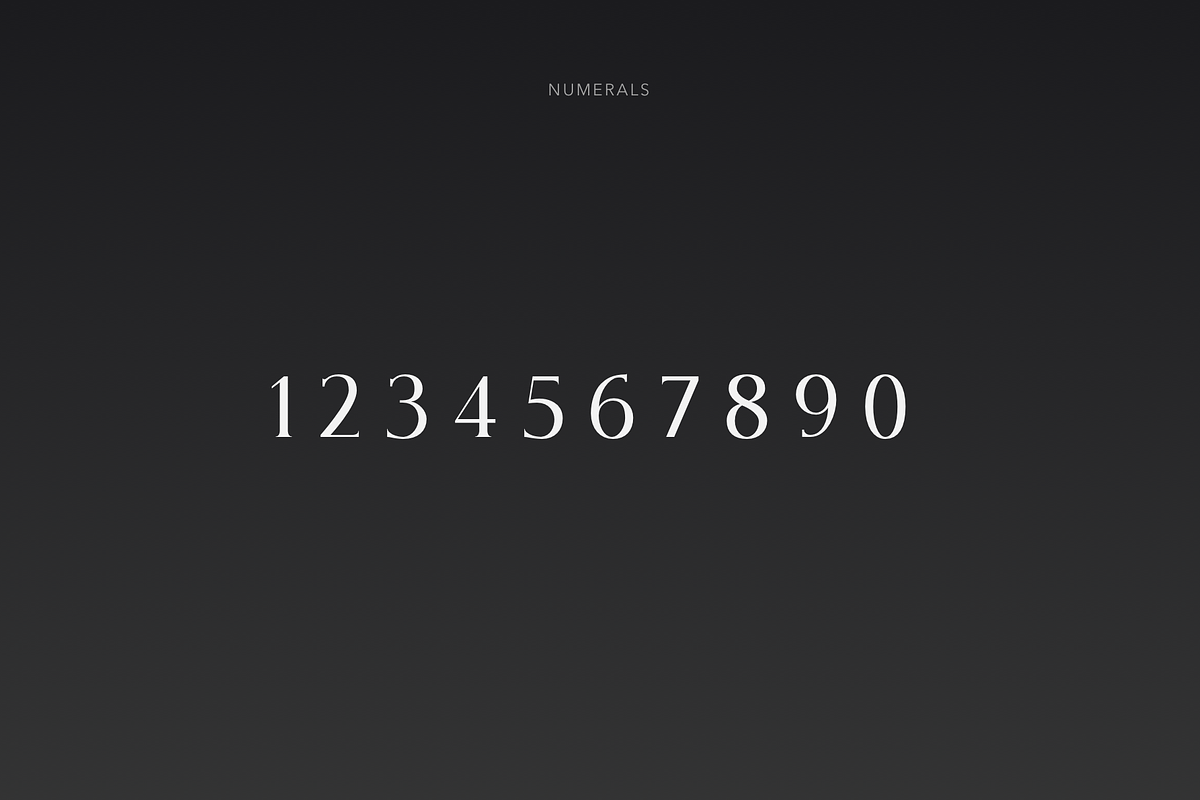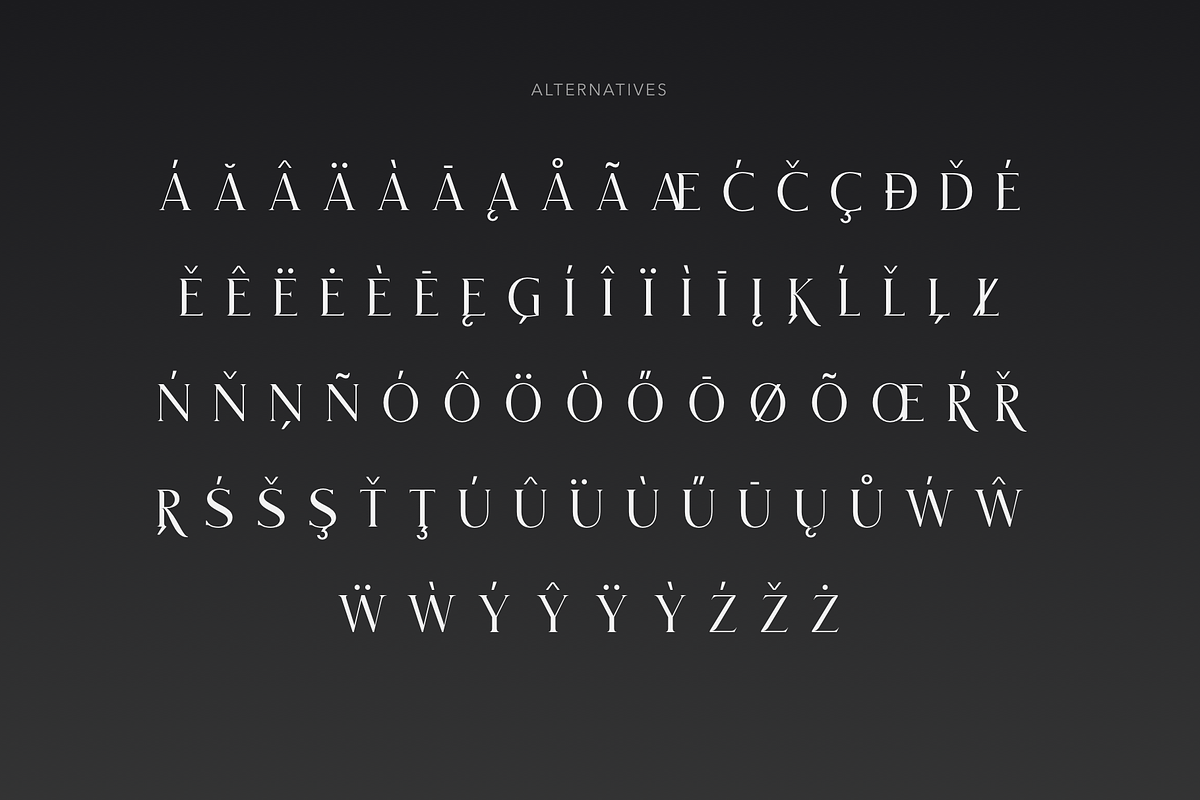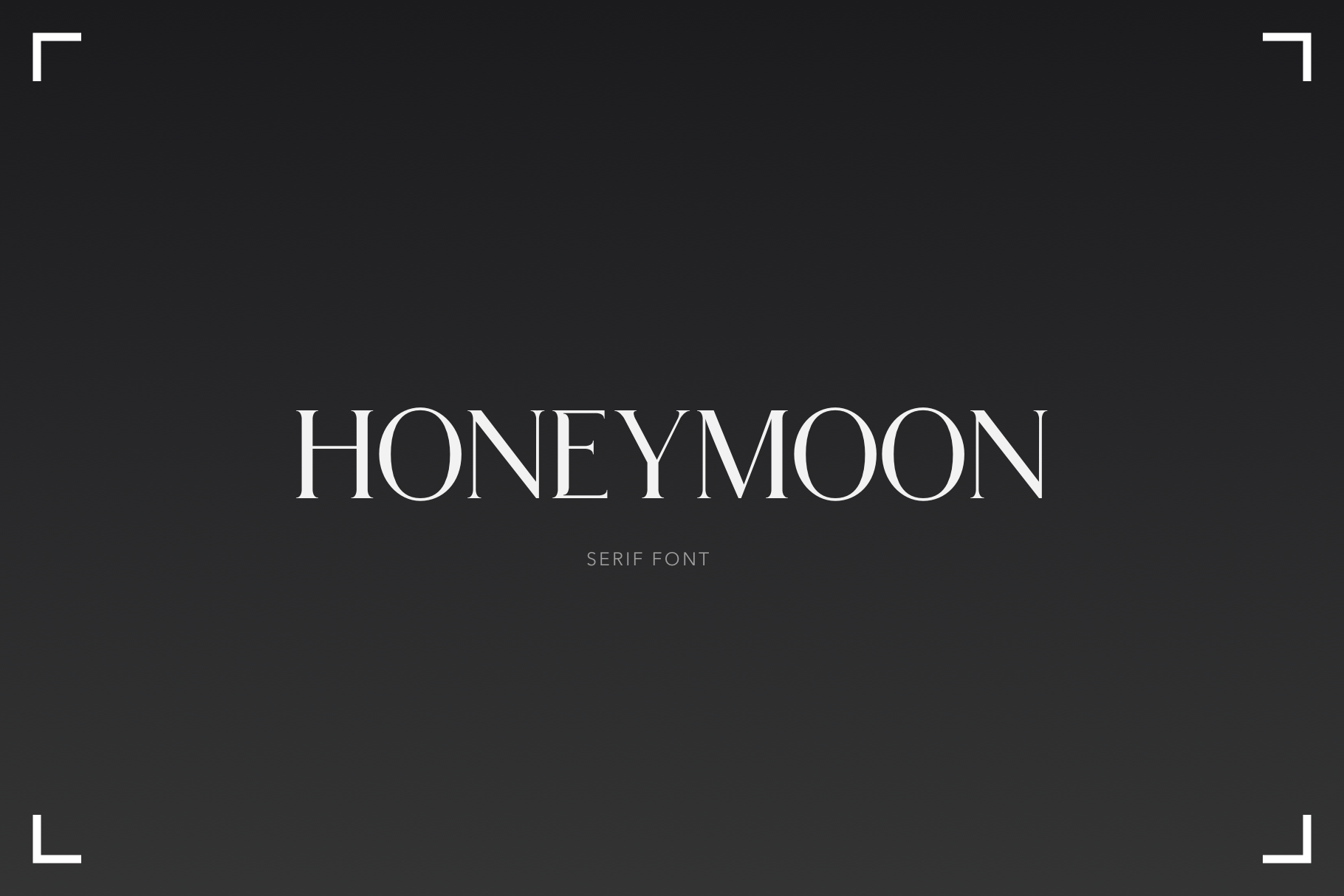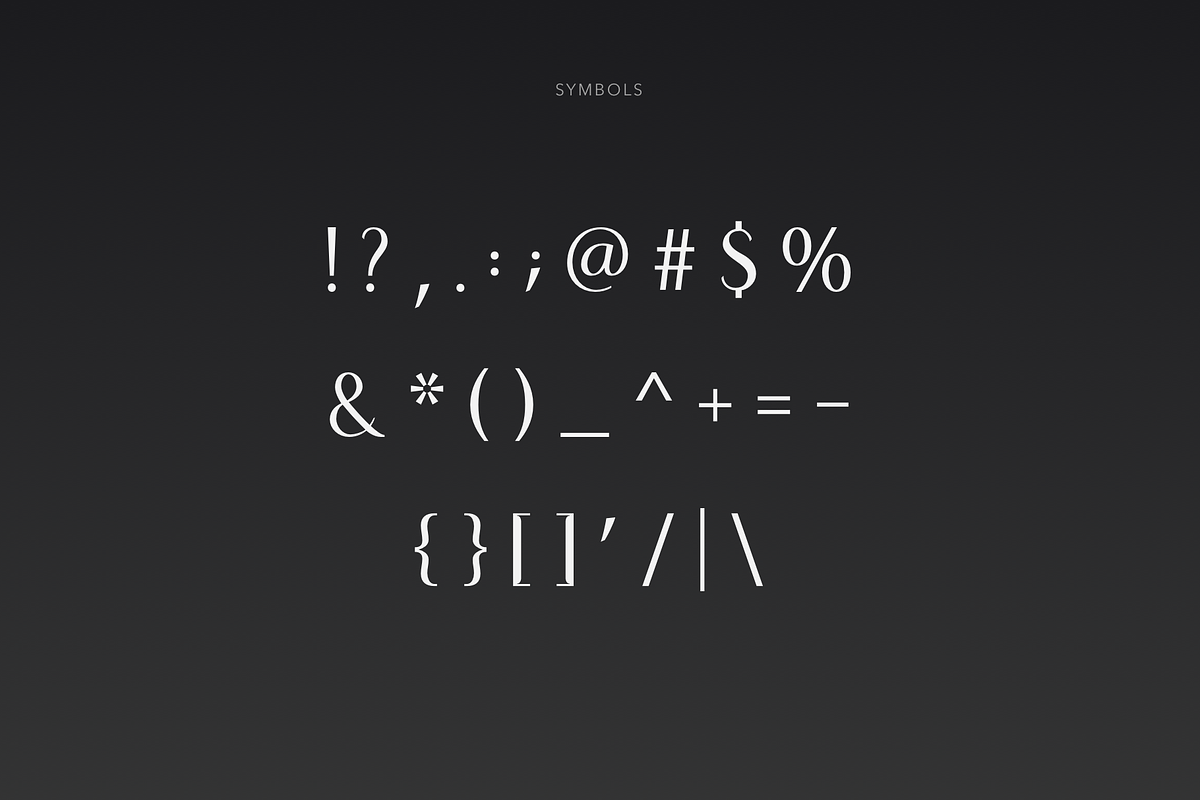
Honeymoon - Elegant Serif Font
Introducing Honeymoon font, an elegant serif font for your design.
The package includes uppercase letters, numerals and large range of punctuation and international characters. This font will perfectly fit various design and corporate needs.